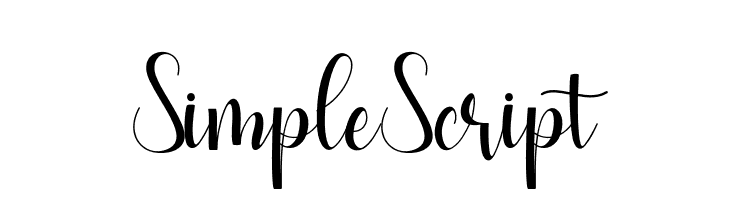
A cursive, handwritten font with elegant loops and smooth, flowing strokes.
A flowing, cursive script font with elegant loops and swashes.
A lively and elegant script font with a handwritten touch.
A lively and elegant script font with playful curves and dynamic contrast.